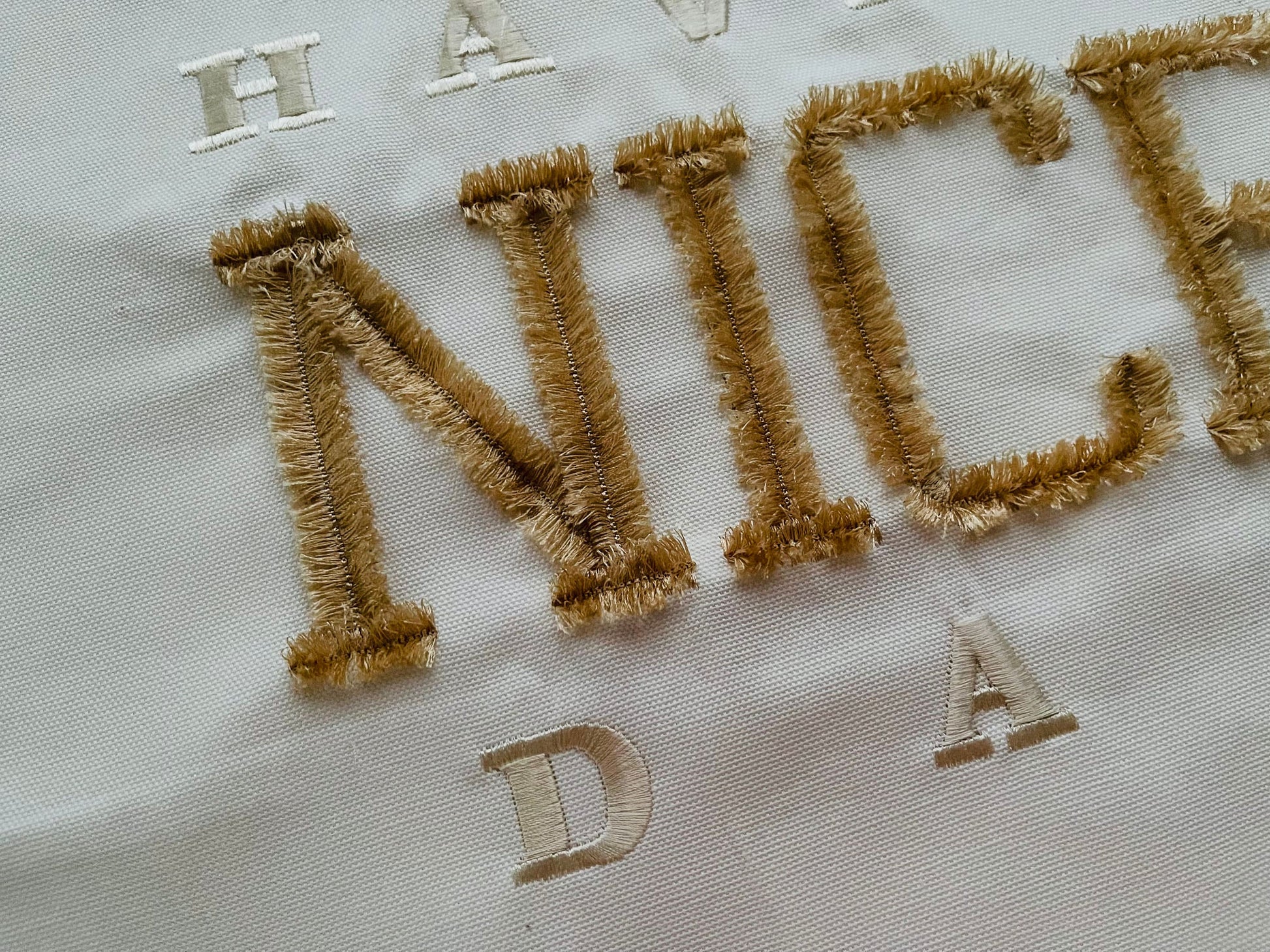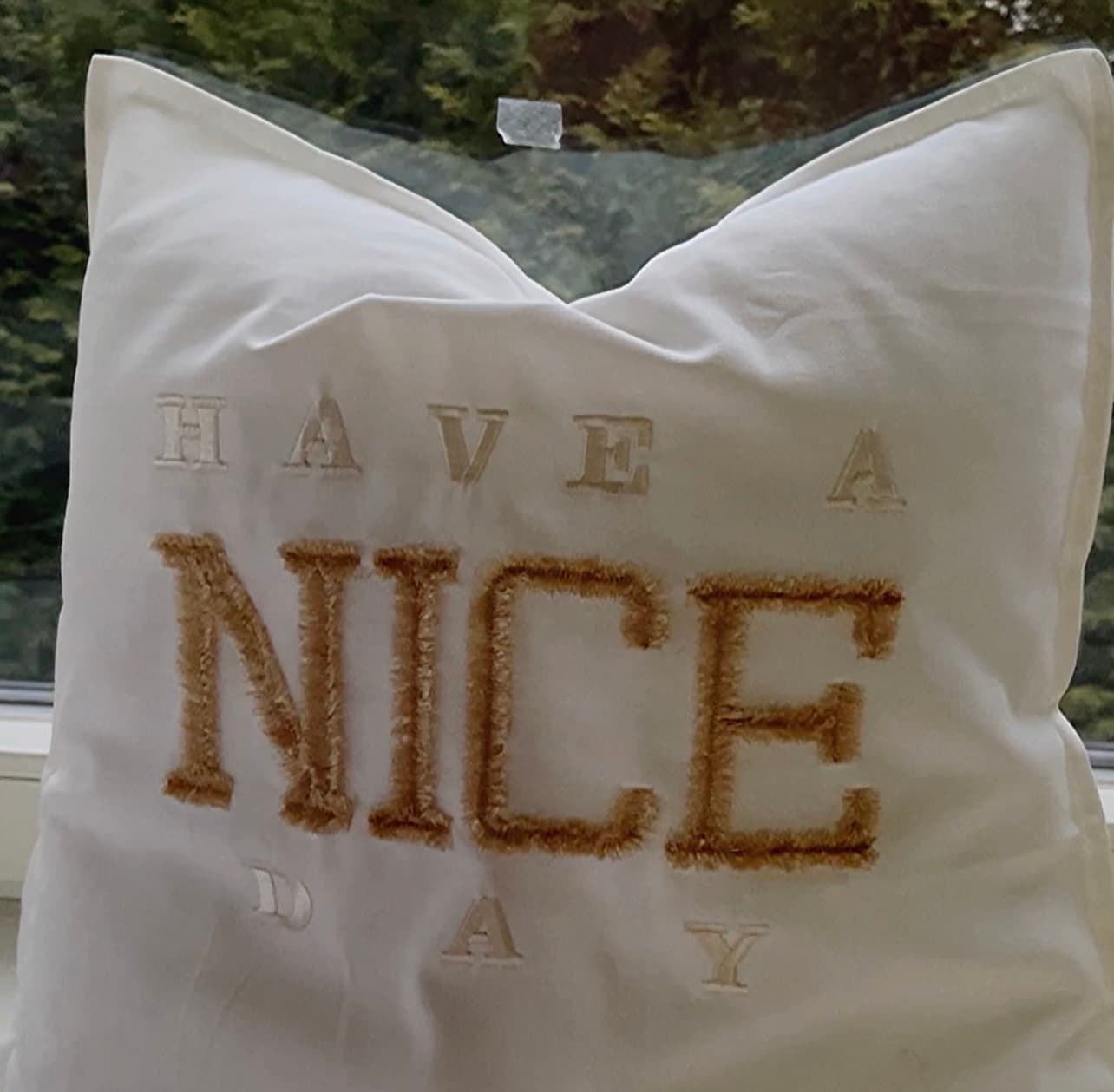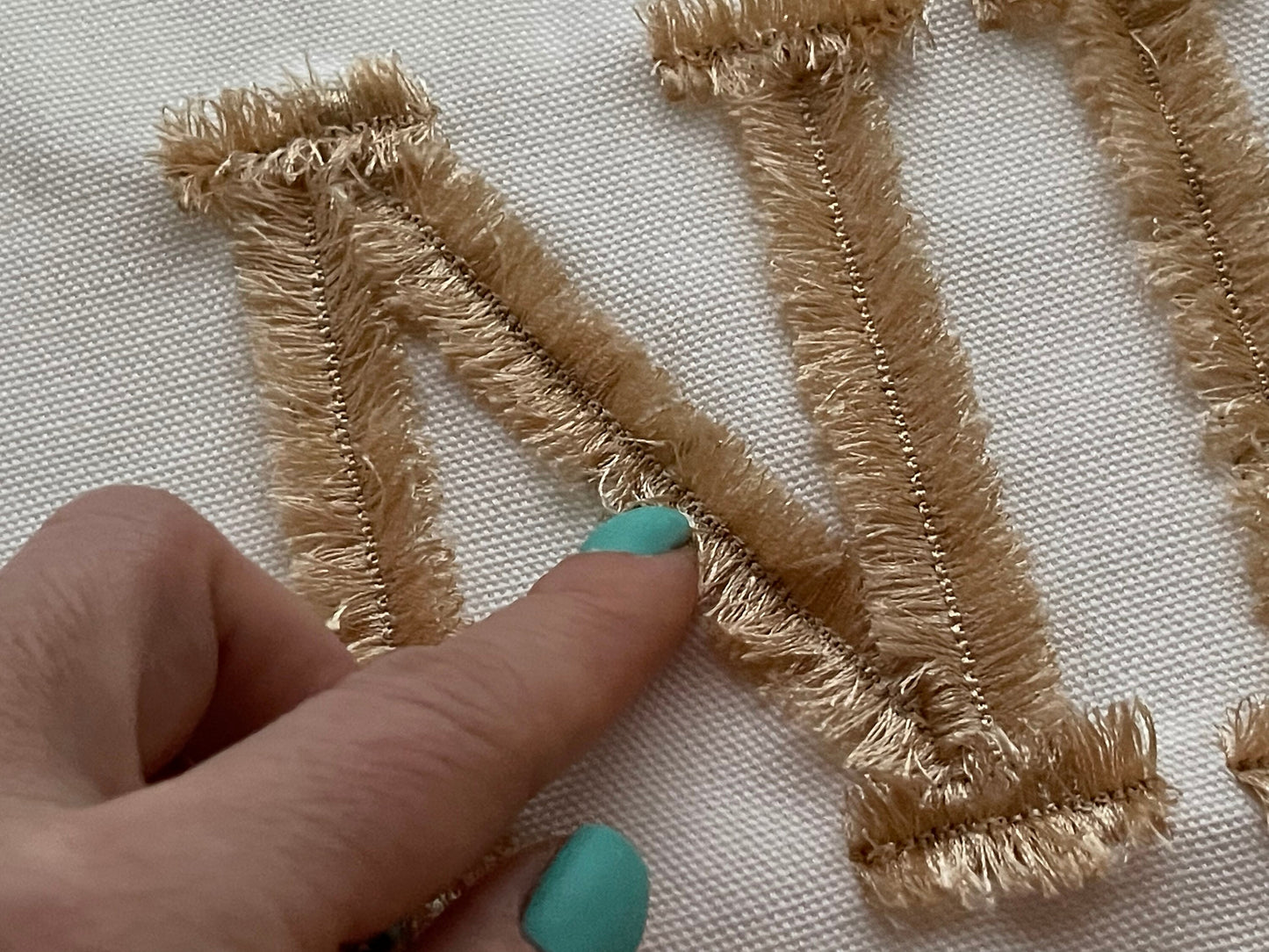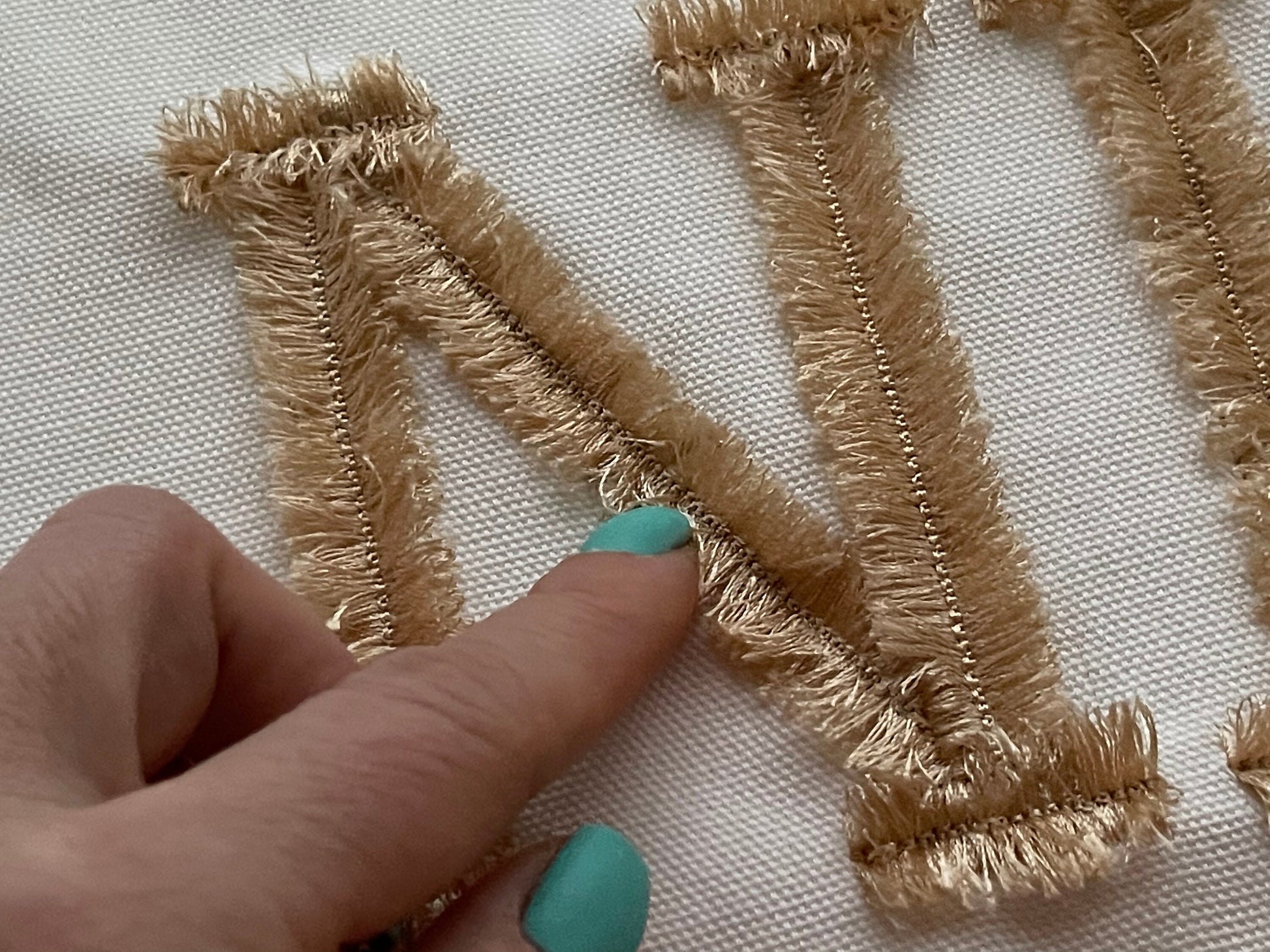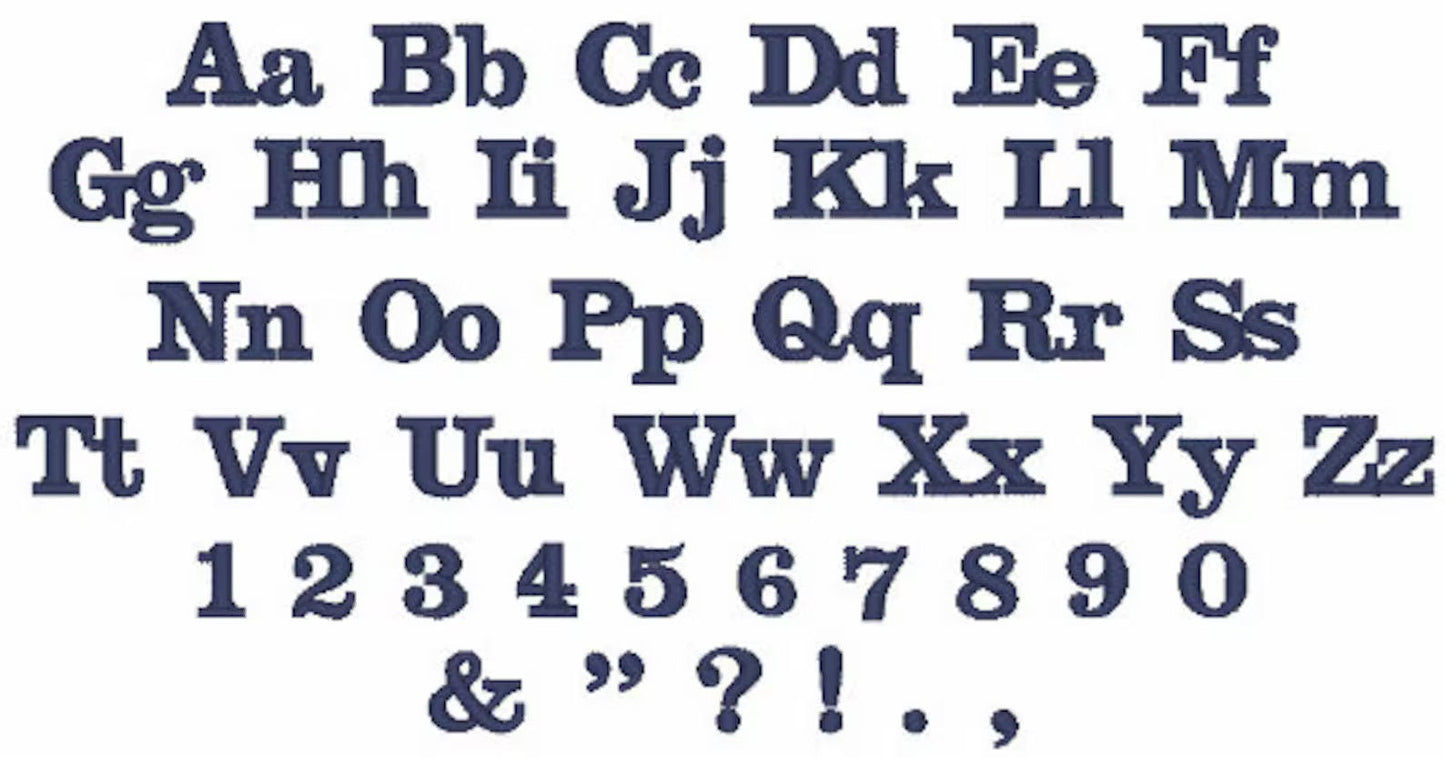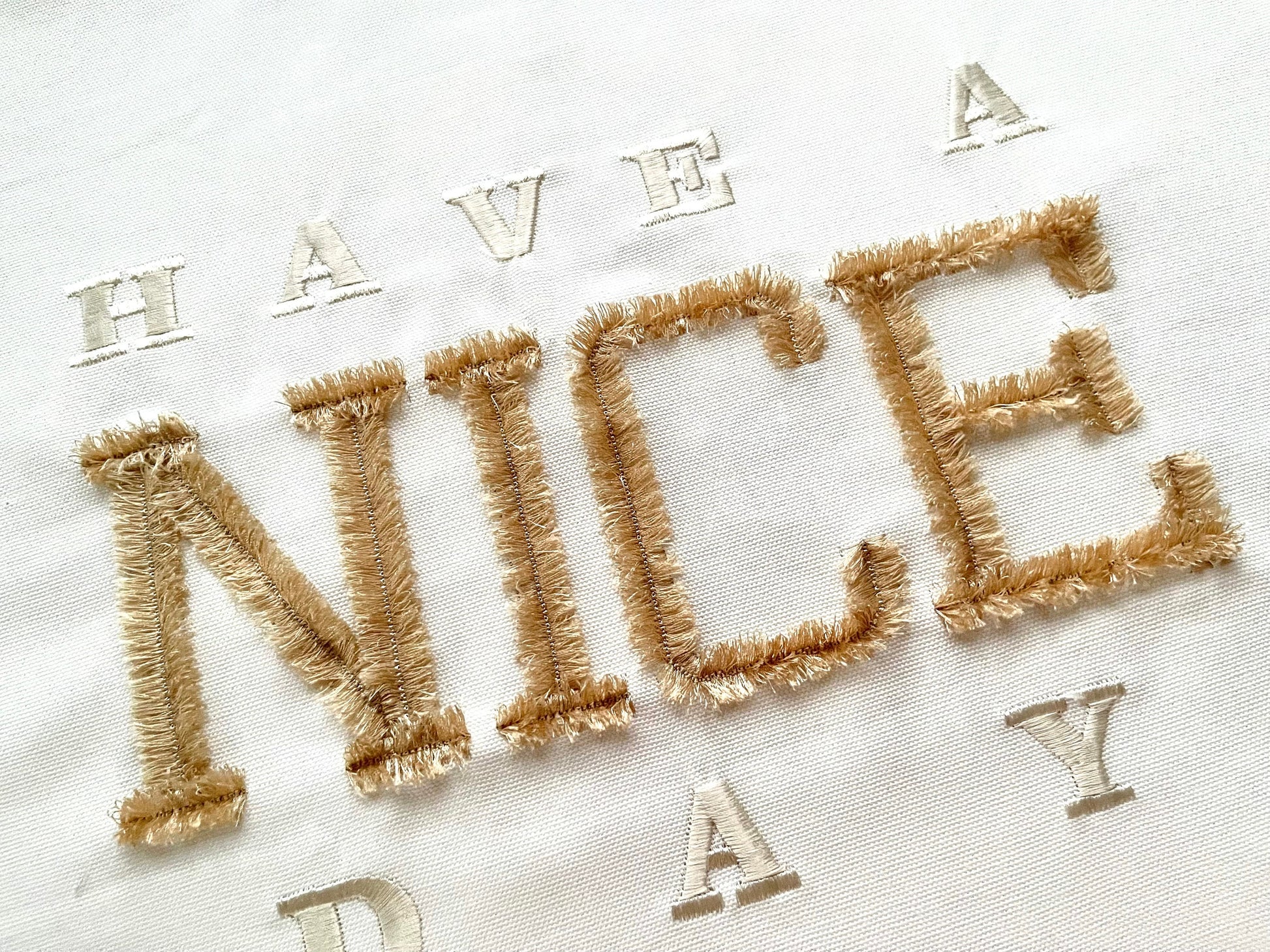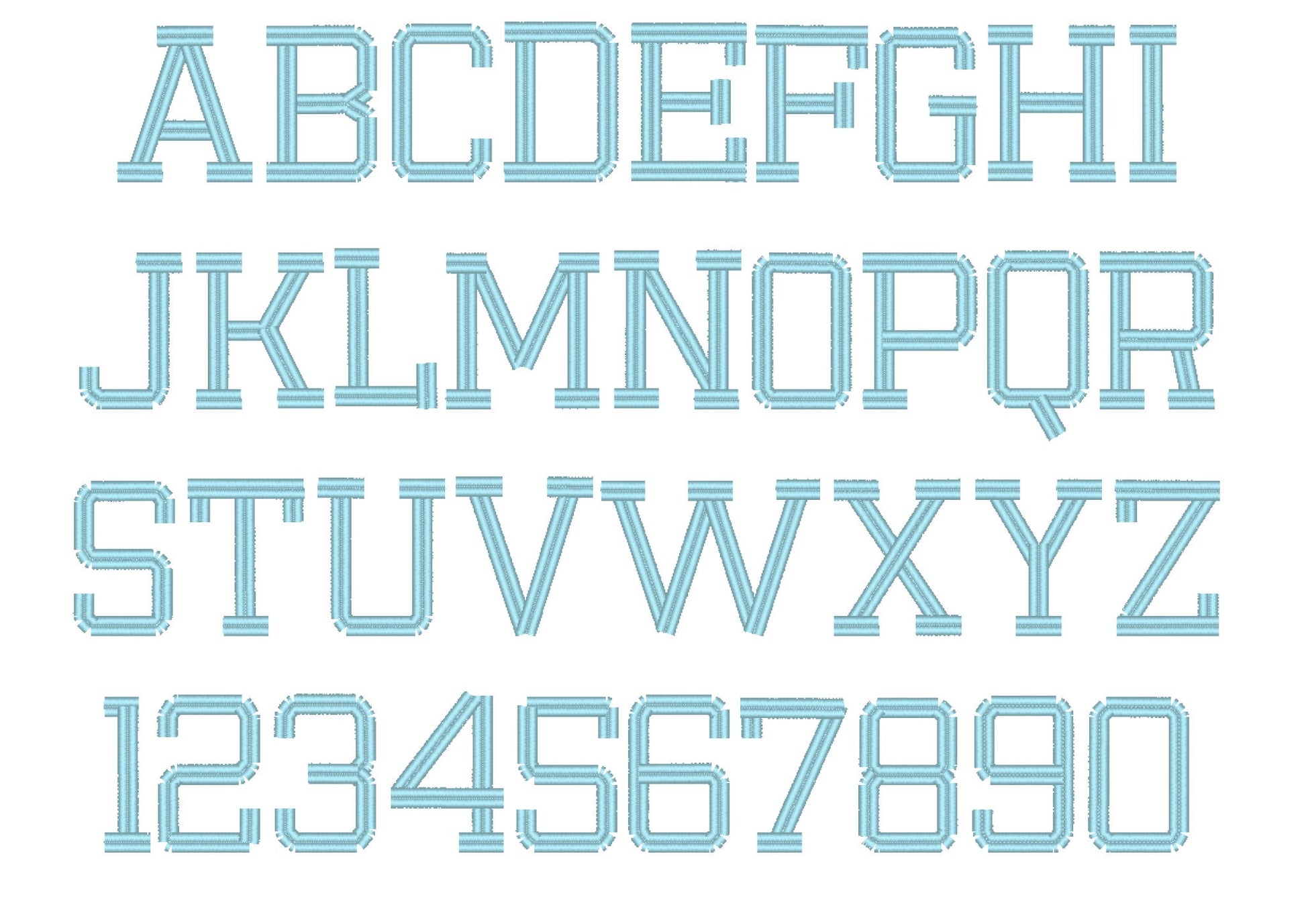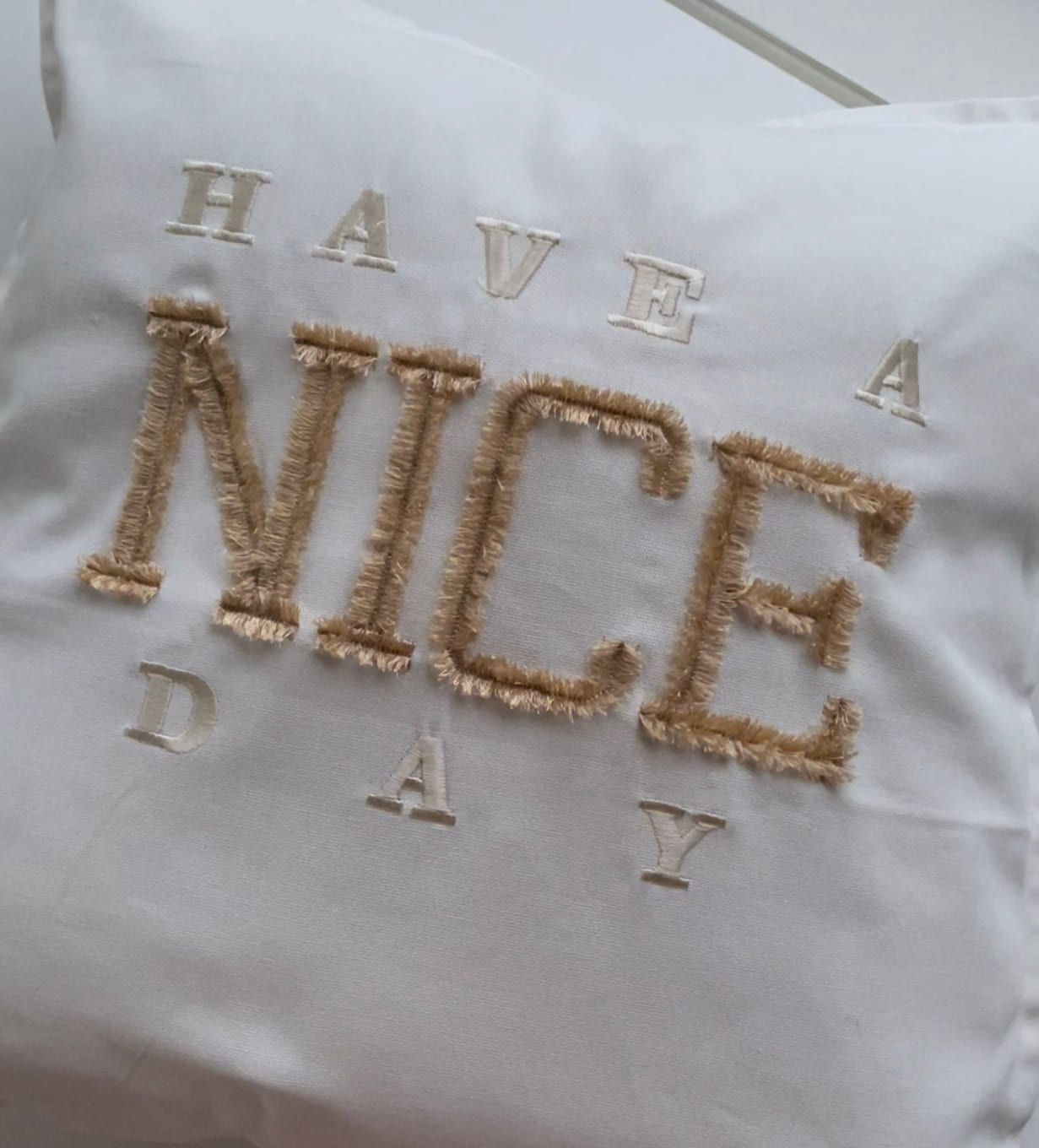
Fringed Varsity Collegiate Font
Or click to open the linkA fringed faux chenille varsity font with a matching mini font. Fluffy and sporty for letterman jackets, team shirts and sweatshirts.
The fringed font has uppercase letters A to Z and numbers 0 to 9 in 2.2, 2.7, 3.1, 3.4, 4 and 4.4 inches. The mini font has uppercase and lowercase letters, numbers 0 to 9, umlauts and punctuation in five small sizes from 0.5 to 1.4 inches.
- Fringed faux chenille varsity font, 2.2 to 4.4 in
- Uppercase A-Z, numbers 0-9
- Mini font, 0.5 to 1.4 in